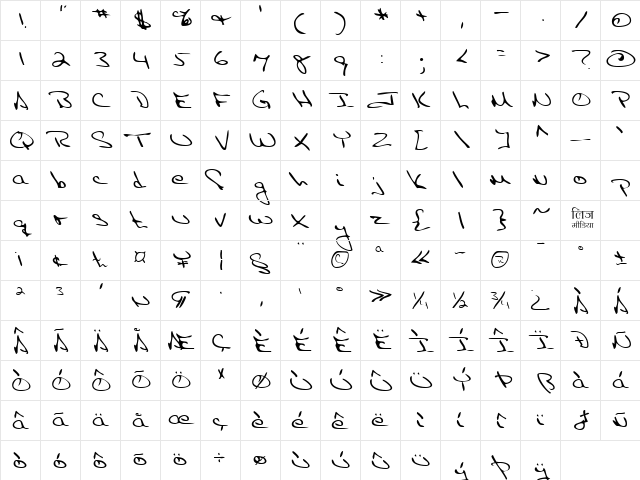
LEHN087 Regular Free Font
LEHN087 Regular
Design Context for LEHN087
LEHN087 is a composed and adaptable typeface that performs quietly and consistently across a wide range of design contexts.